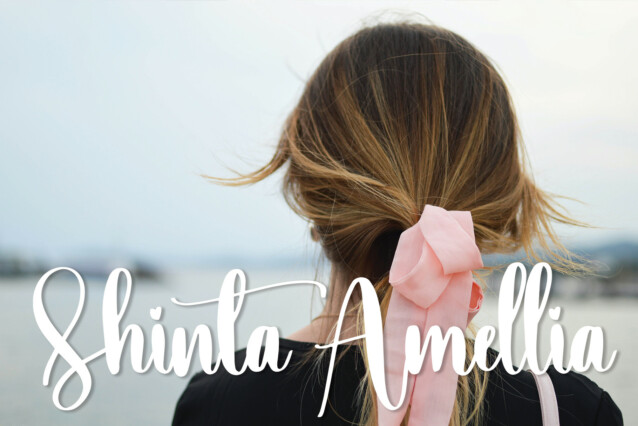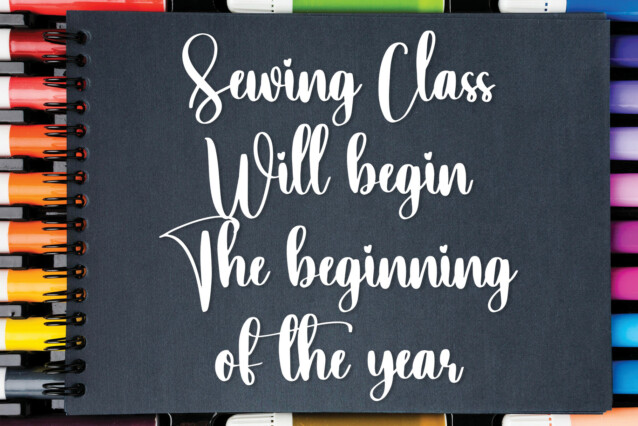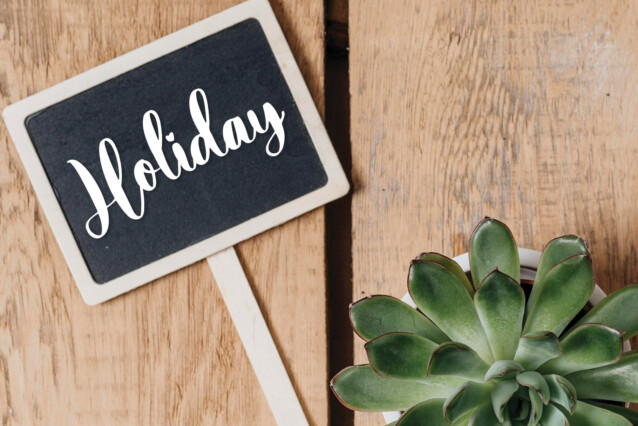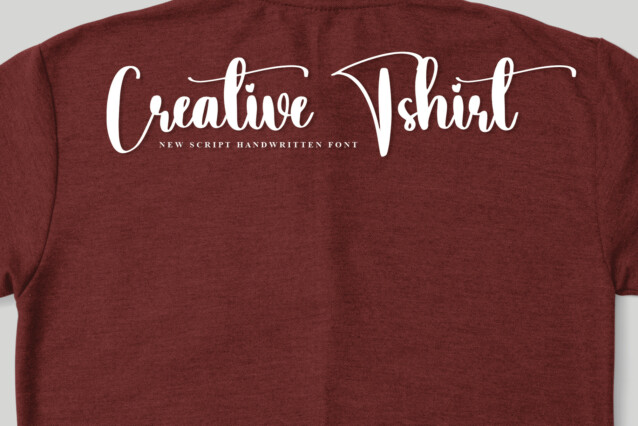
Taking Script Font
Taking Script Font is a stylish and cool handwritten font. It will add a luxury spark to any design project that you wish to create!